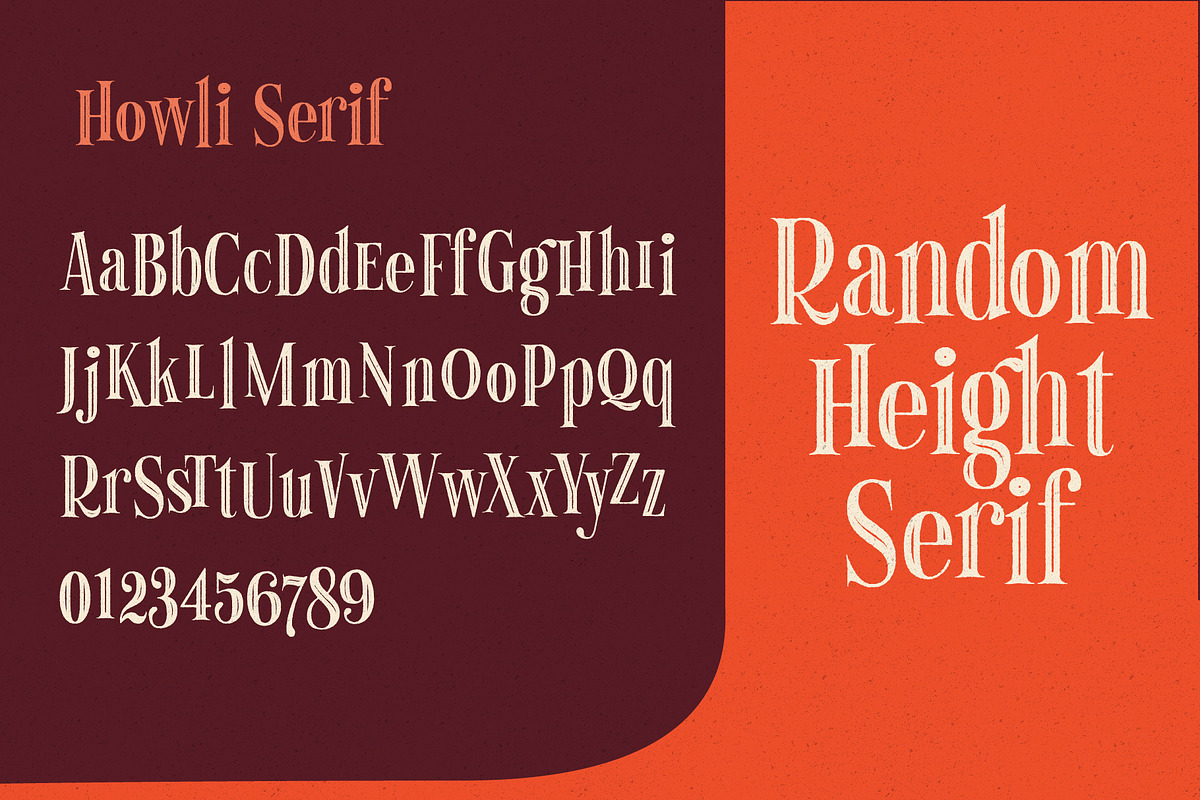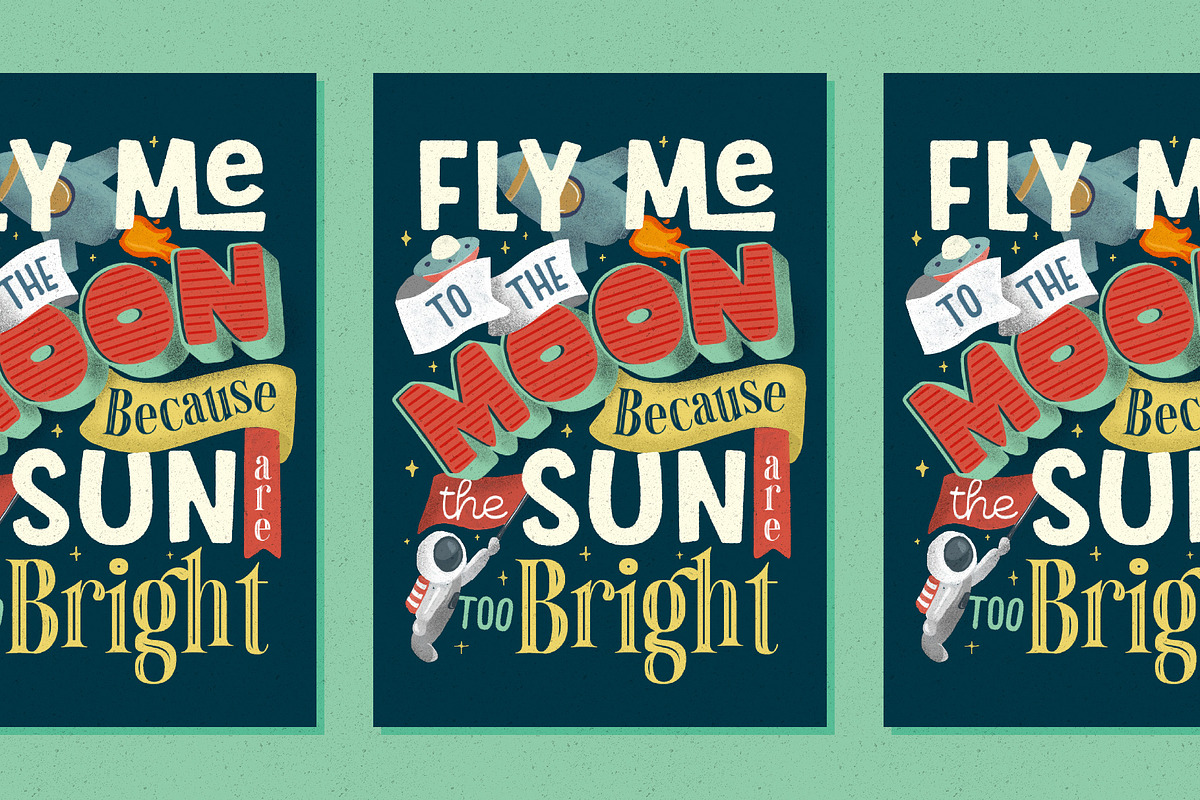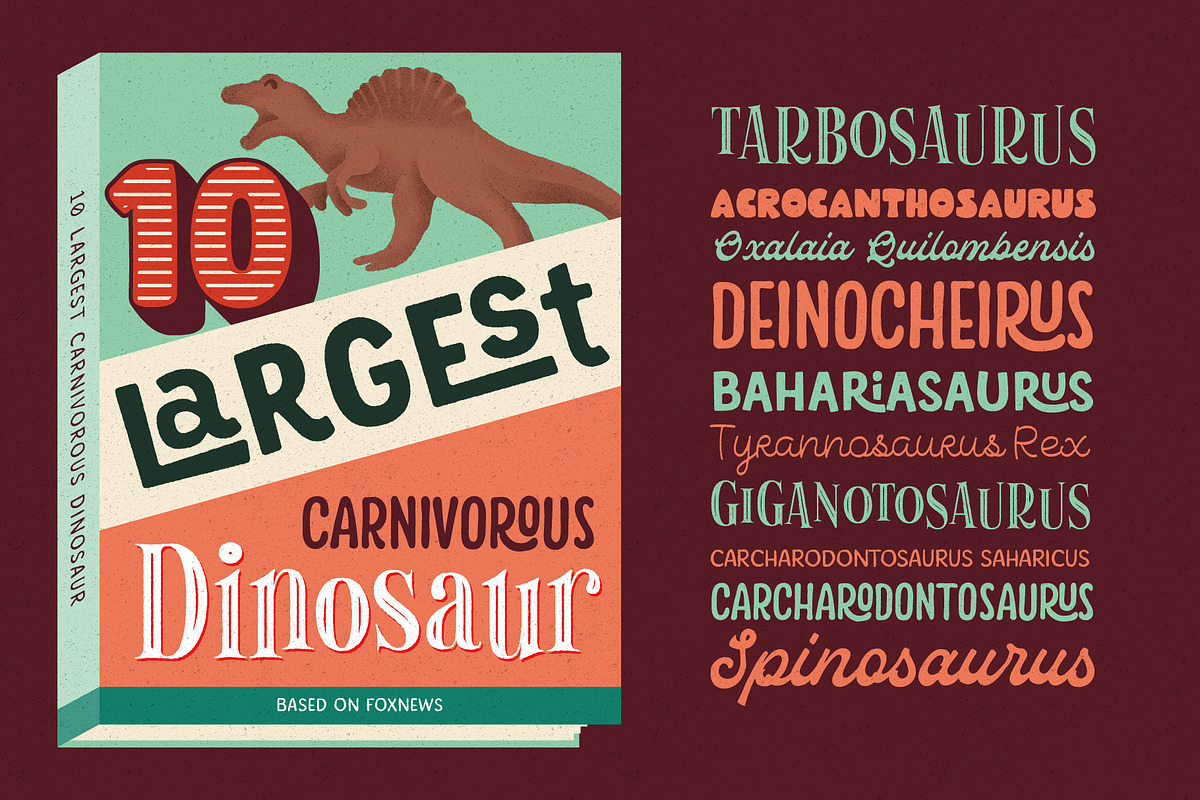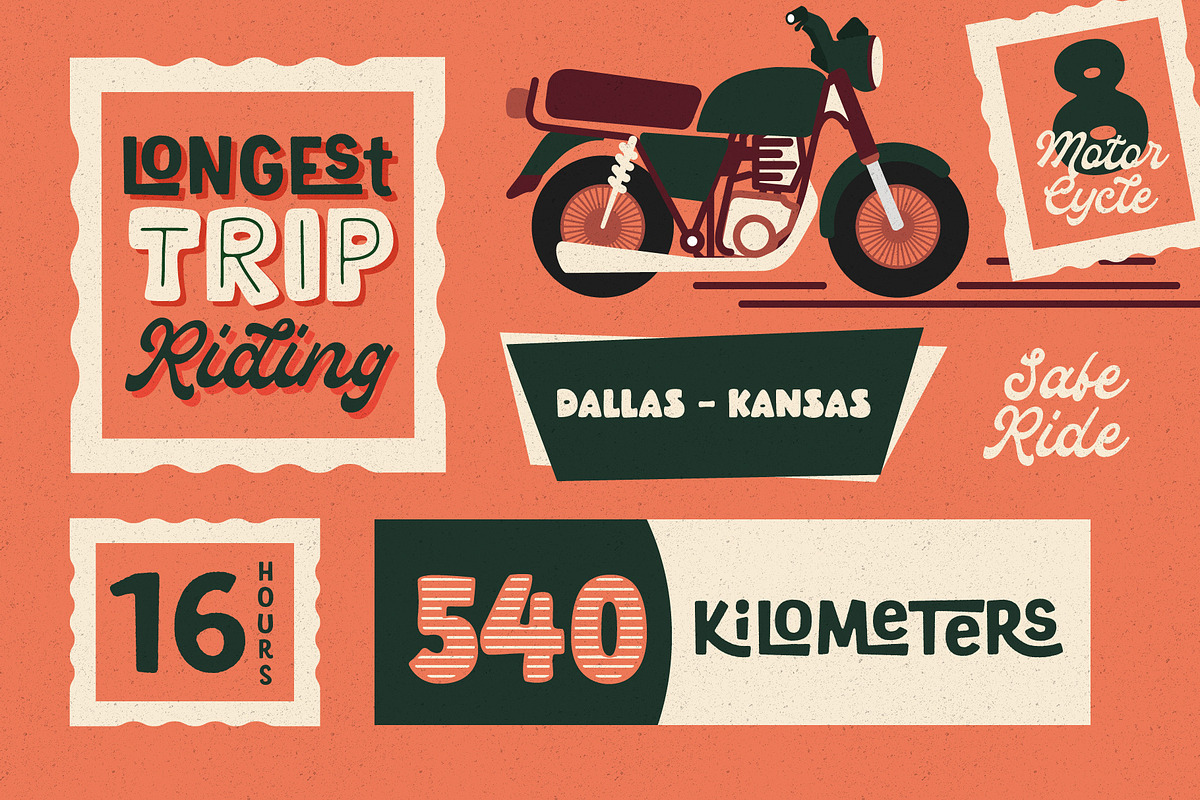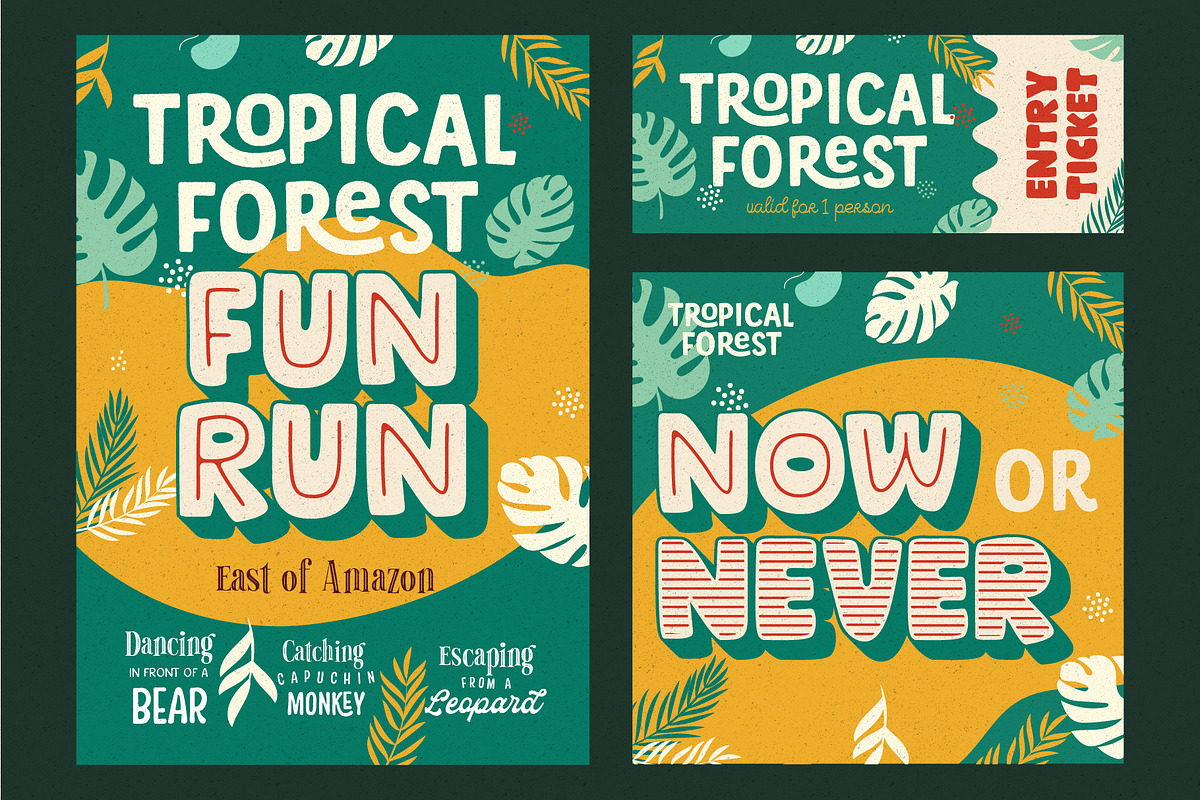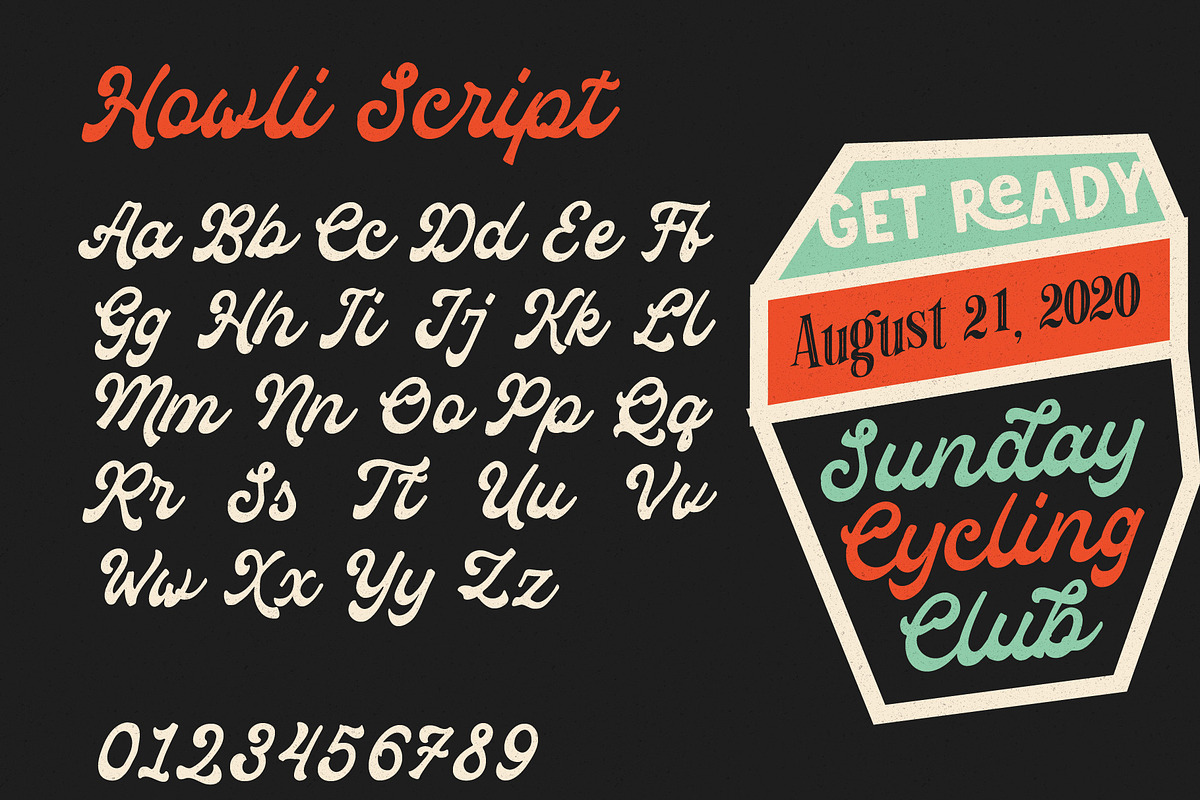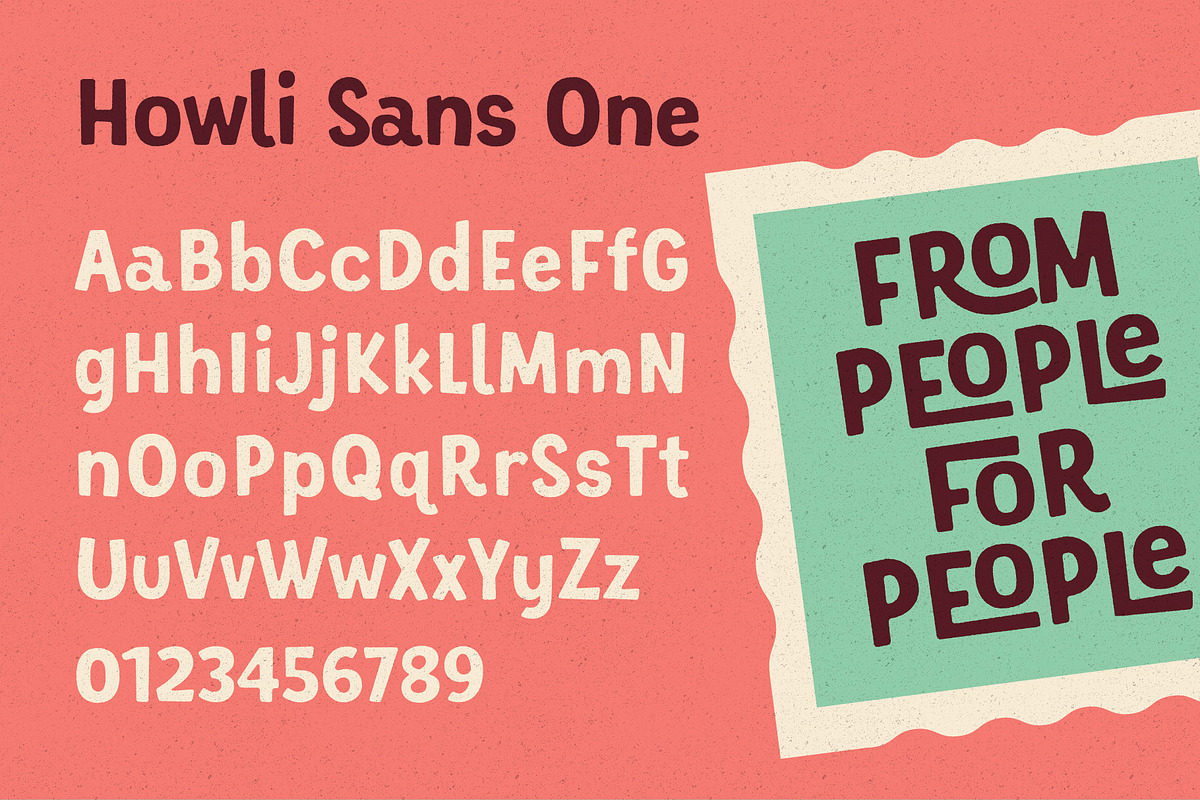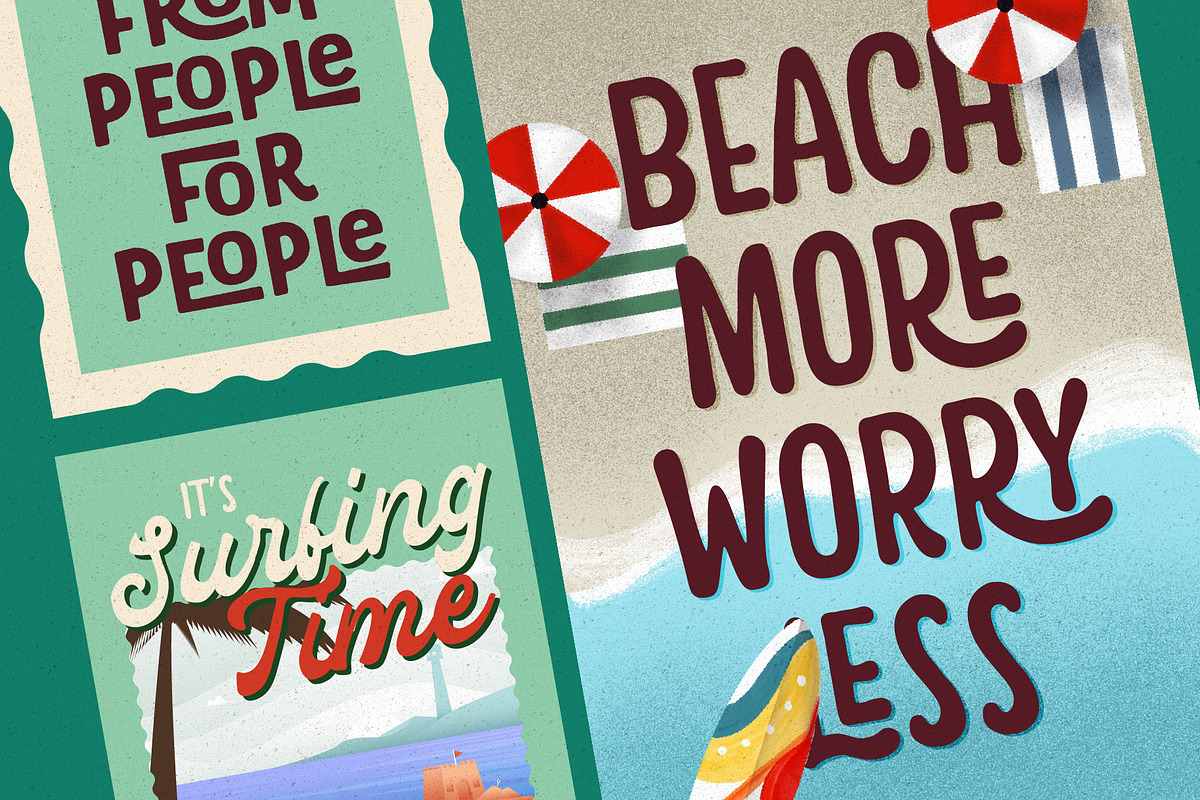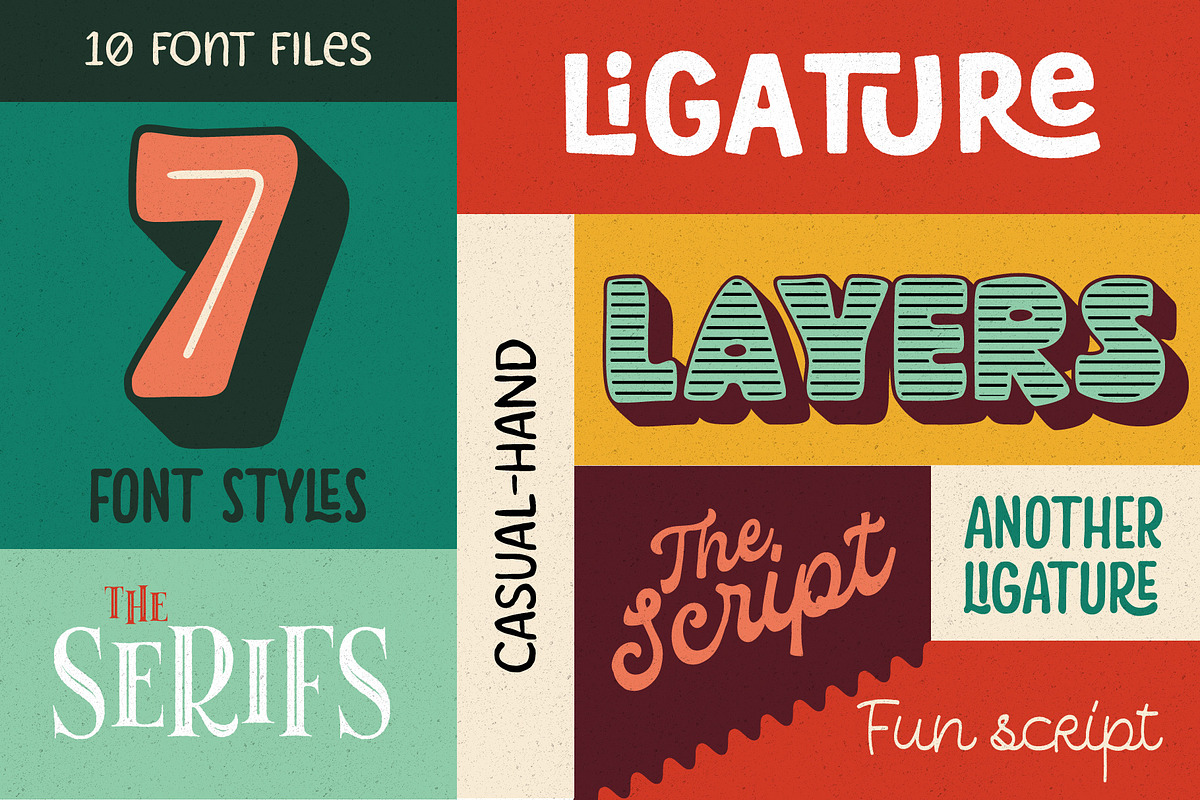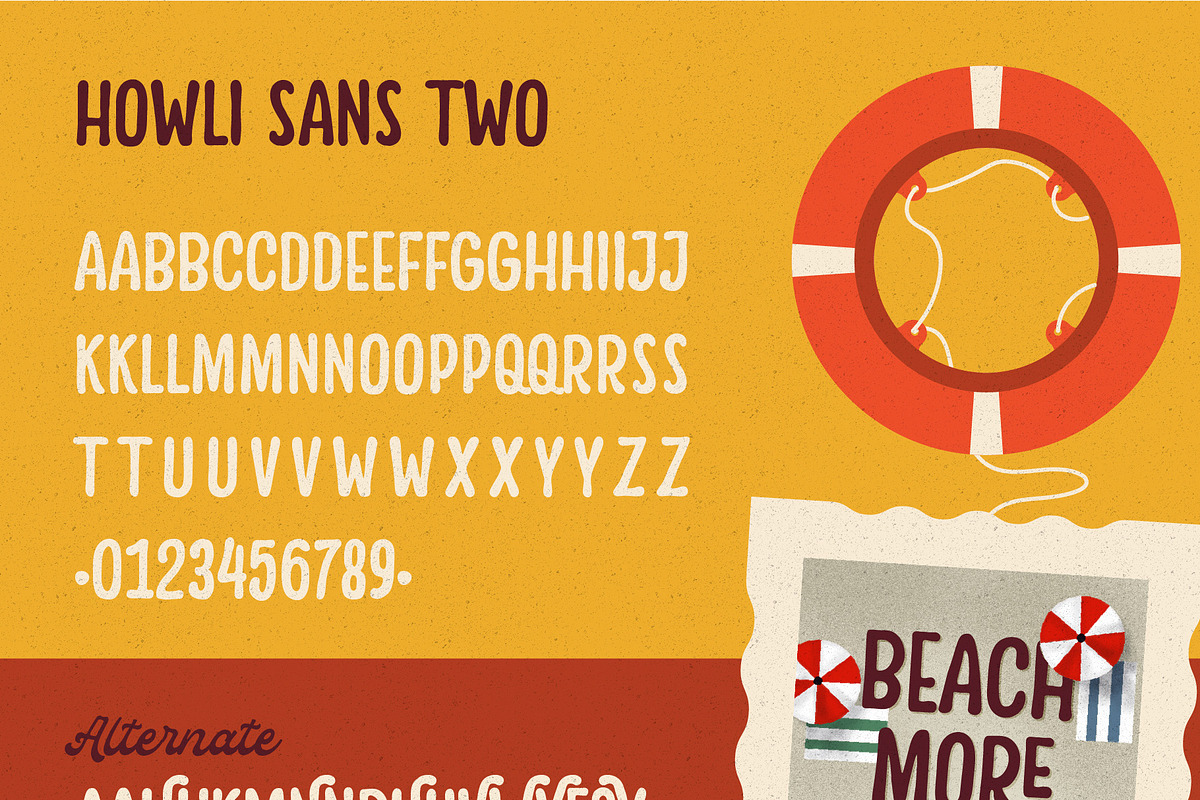
Howli - Playful FontPack
Introducing : Howli Playful fontpack with 7 Font Styles
Howli are a combinations of fonts that fits with the playful concept. Purely created in a hand drawn to create a unique rough. An exploration of a playful theme with nice & cute look and you can combine within 7 style fonts from this FontPack!
- The Boldest on this pack are Howli layers, 3 Layered fonts with base, shadow and inline or hatch. you can choose between inline or hatch for the Howli Layers.
- Howli Sans Serif Style comes with 3 Styles. Two of them are available for a Ligatures like I've shown on the display.
- Serif, A Dancing baseline serif gives you a freedom.
- Script, a Classic look of Script fonts
- Fun Script, a Cute and Fun Script.